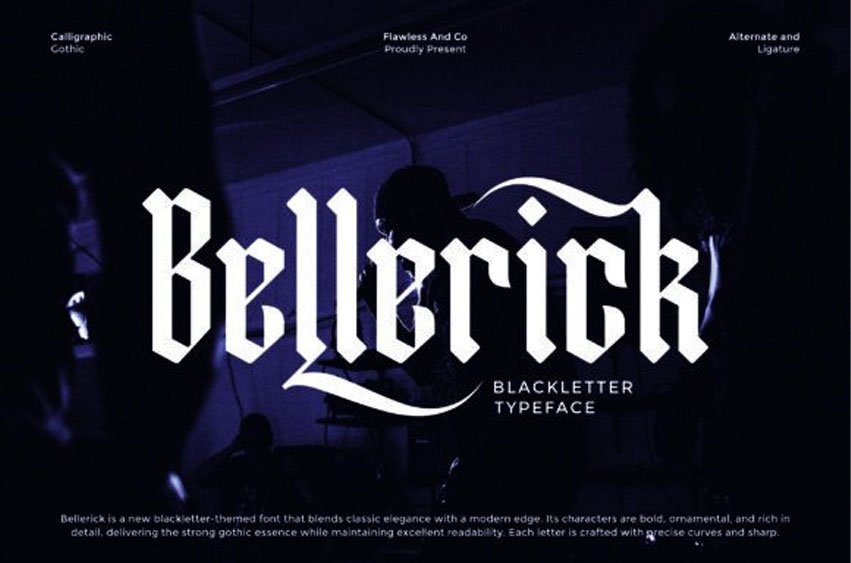
Bellerick Font is a striking blackletter typeface that merges traditional Gothic aesthetics with a modern twist. Its bold and ornamental letterforms are crafted with sharp edges and smooth curves, giving it a distinctive and powerful presence.
Perfect for projects that demand a strong gothic character while ensuring readability, Bellerick delivers elegance, strength, and artistry in every letter.